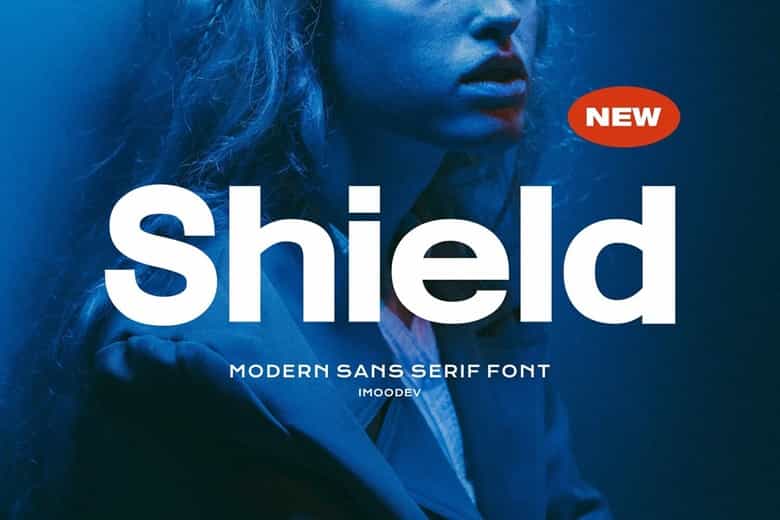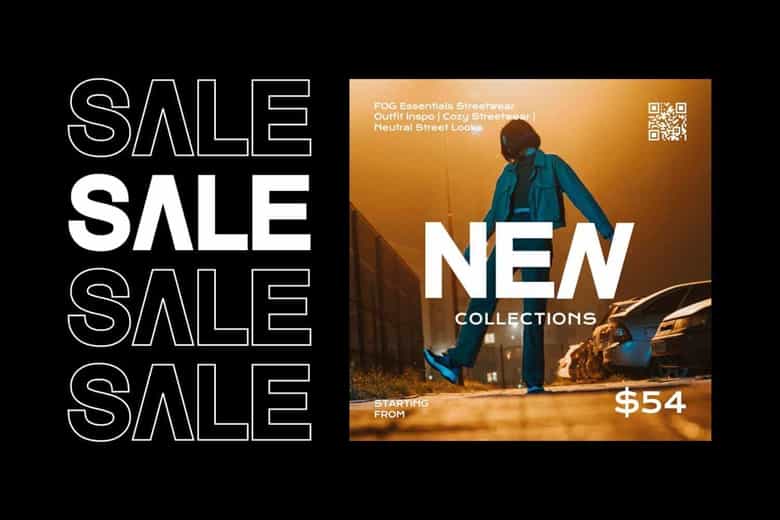
Shield is a high quality modern sans serif font that is designed by imoodev and is available for free download and personal use. The free version provides all uppercase and lowercase letters and a few special characters too.